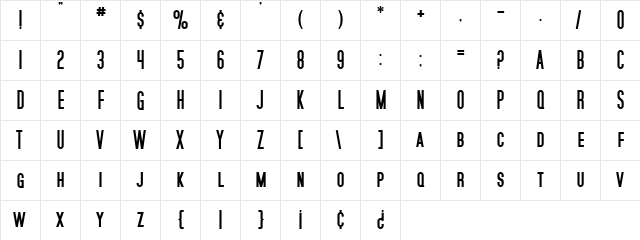
SF Movie Poster Bold Font Preview
SF Movie Poster Bold
SF Movie Poster Bold Font Details
Design Context for SF Movie Poster Typeface
SF Movie Poster takes a measured approach to typography — its balanced proportions and neutral character make it a reliable workhorse for both digital and print work. Its bold stroke weight gives it real presence on the page.
Pro Tip: Use SF Movie Poster in both headline and body roles to test its range before committing to a single application.